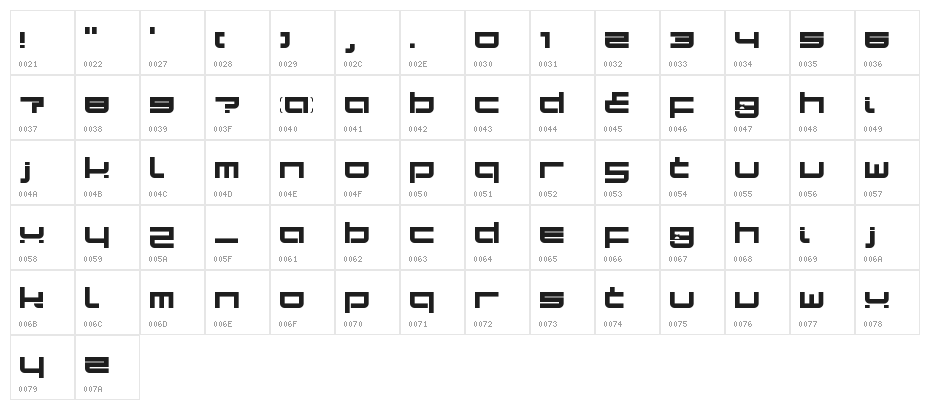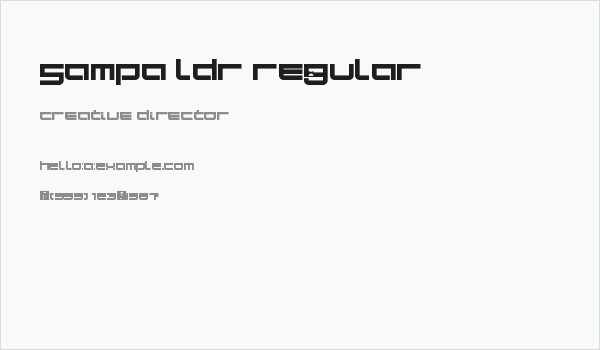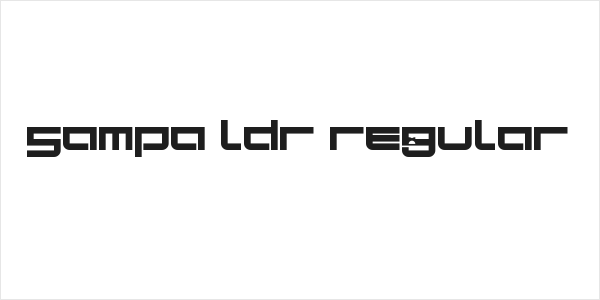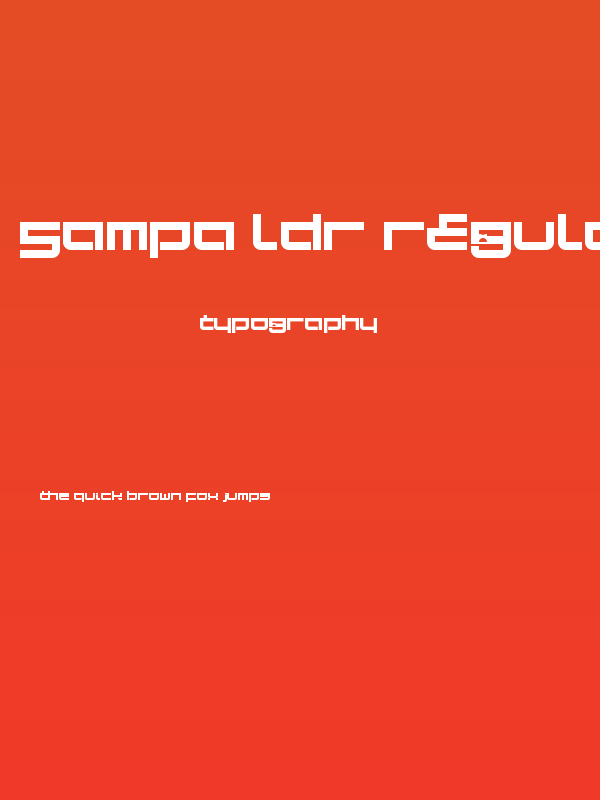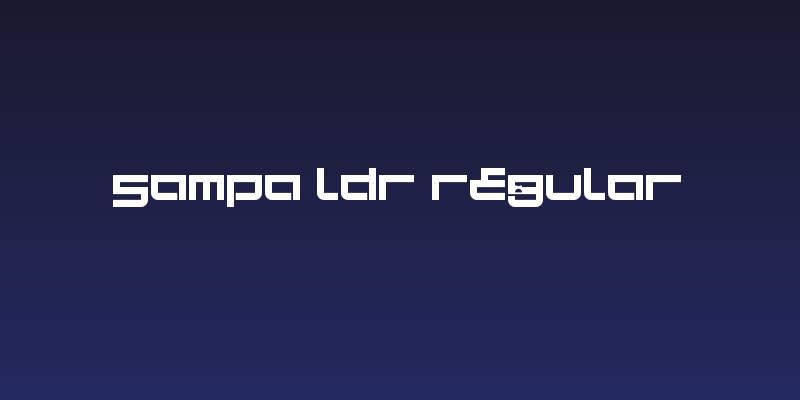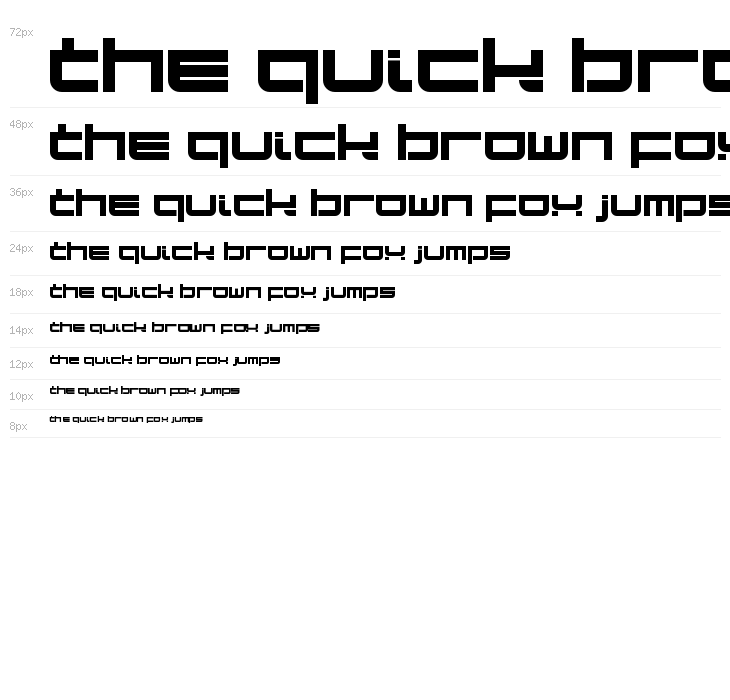
Sampa LDR Regular Font
Sampa LDR Regular Description
This font features a bold, geometric design with a futuristic aesthetic. The characters are constructed with sharp angles and straight lines, giving it a distinctly modern and digital feel. The uppercase and lowercase letters maintain a consistent height, contributing to a uniform appearance. The numbers and special characters follow the same design principles, ensuring a cohesive look across all elements. The font's style is reminiscent of digital displays or sci-fi themes, making it suitable for projects that require a modern and edgy touch.